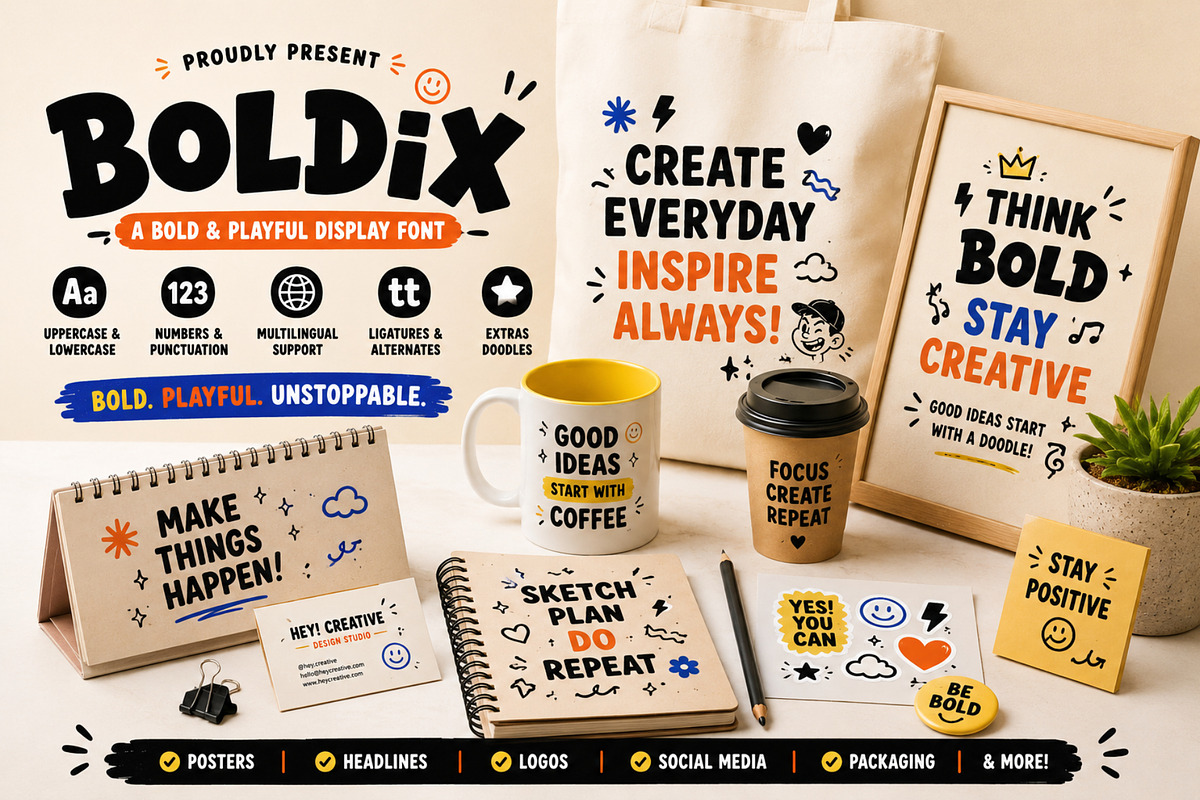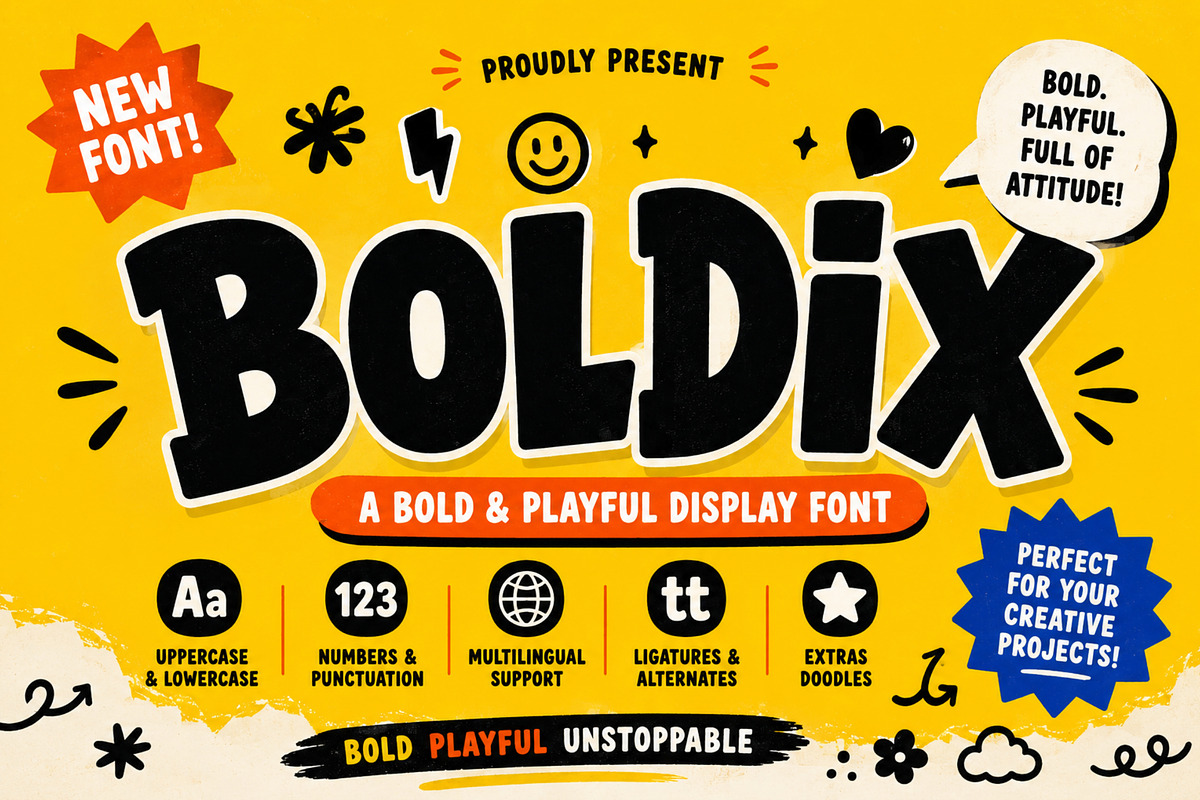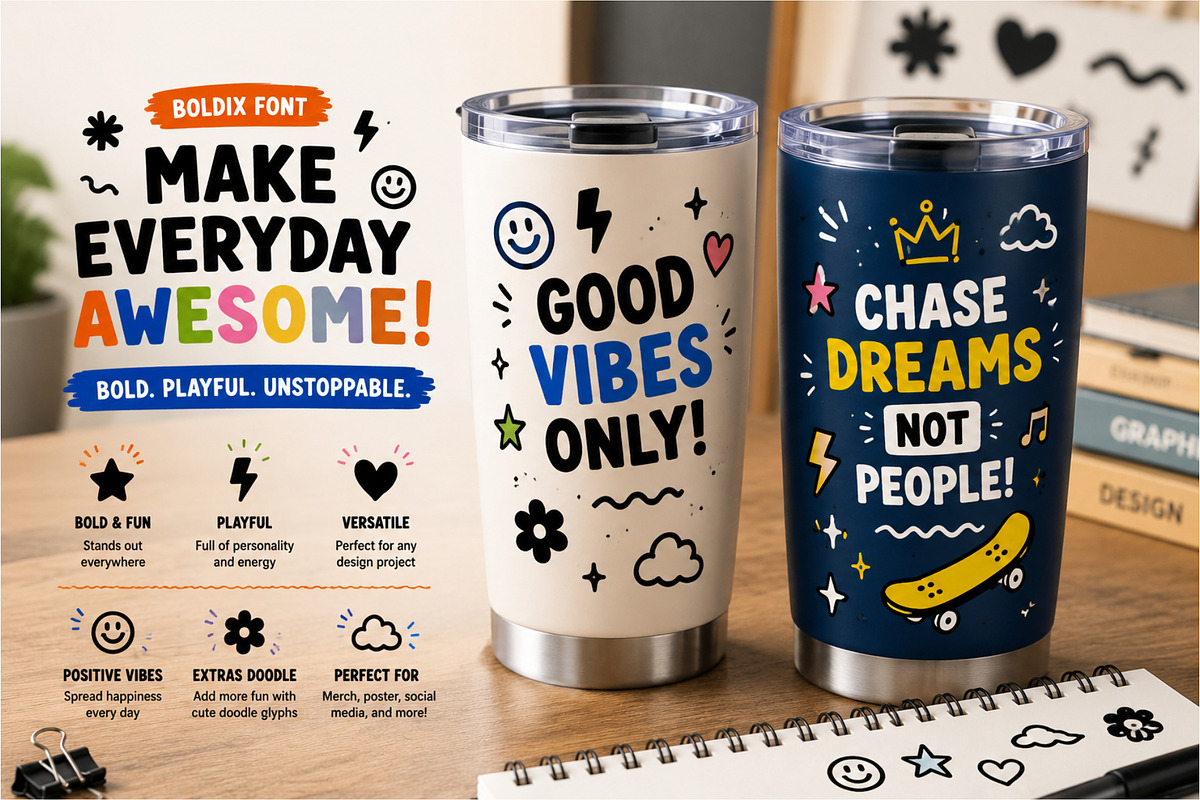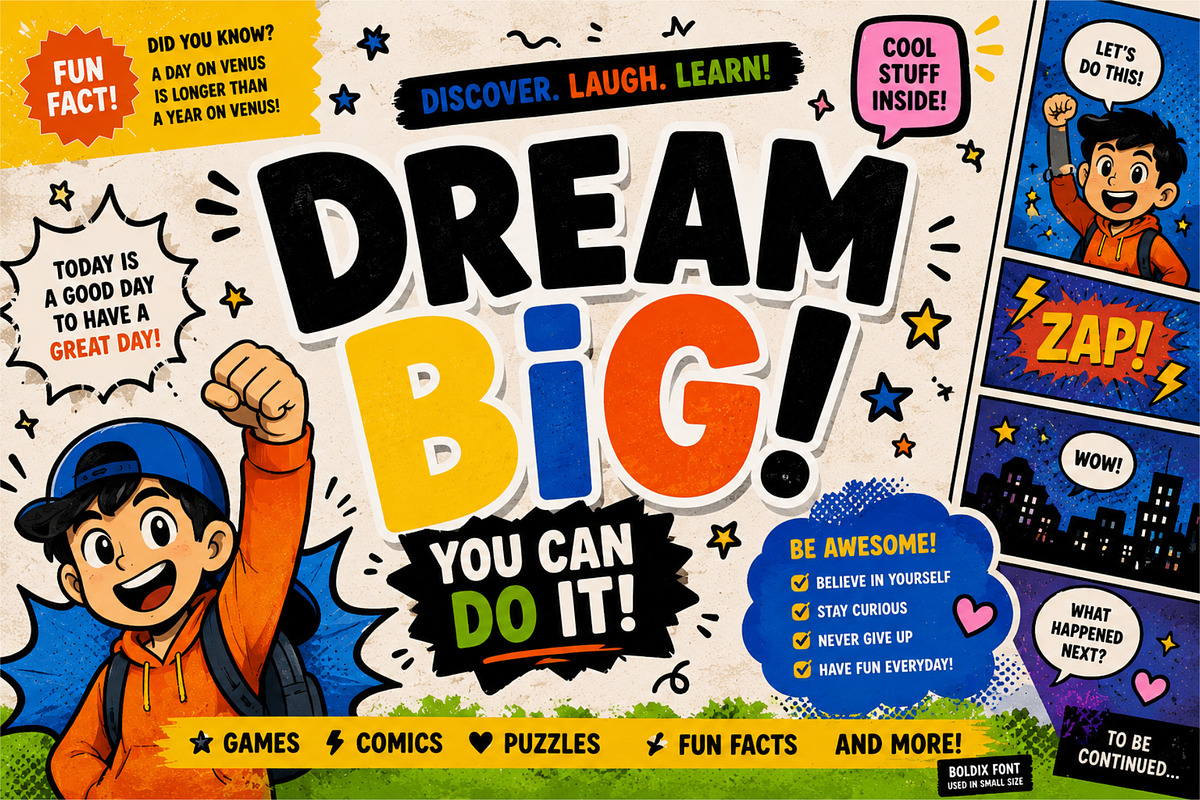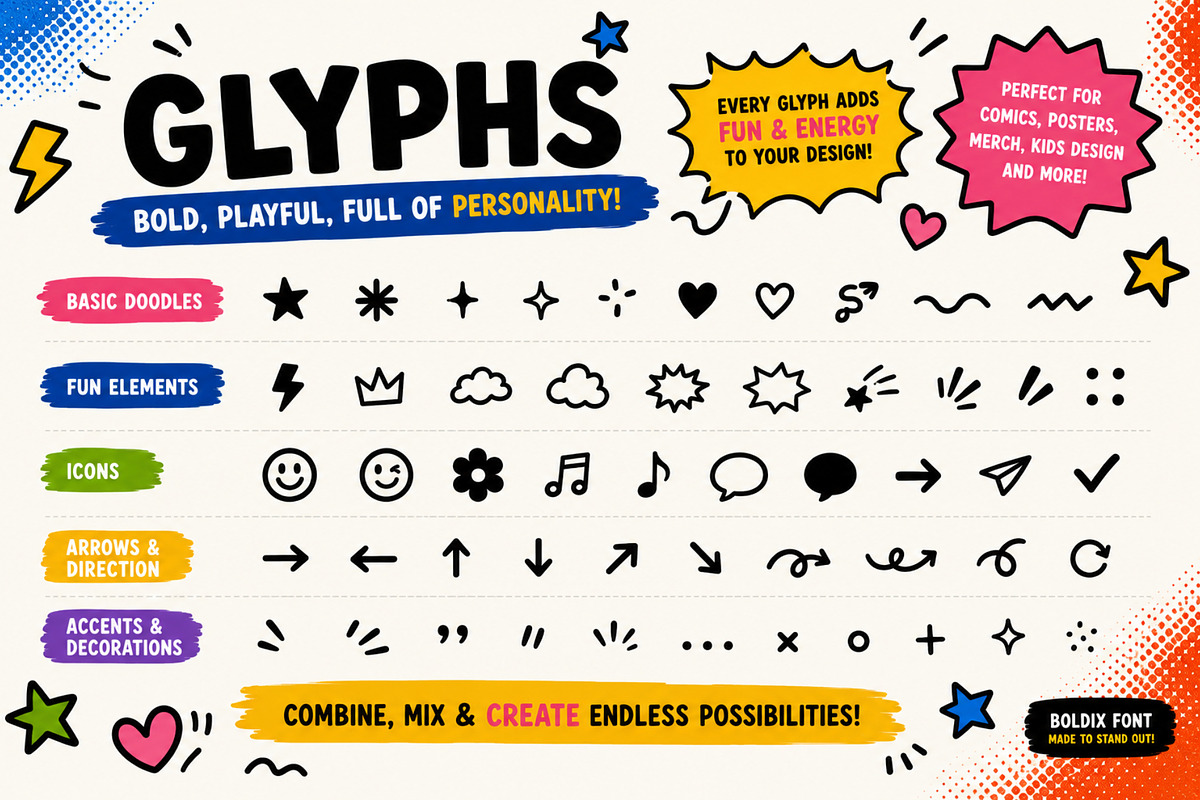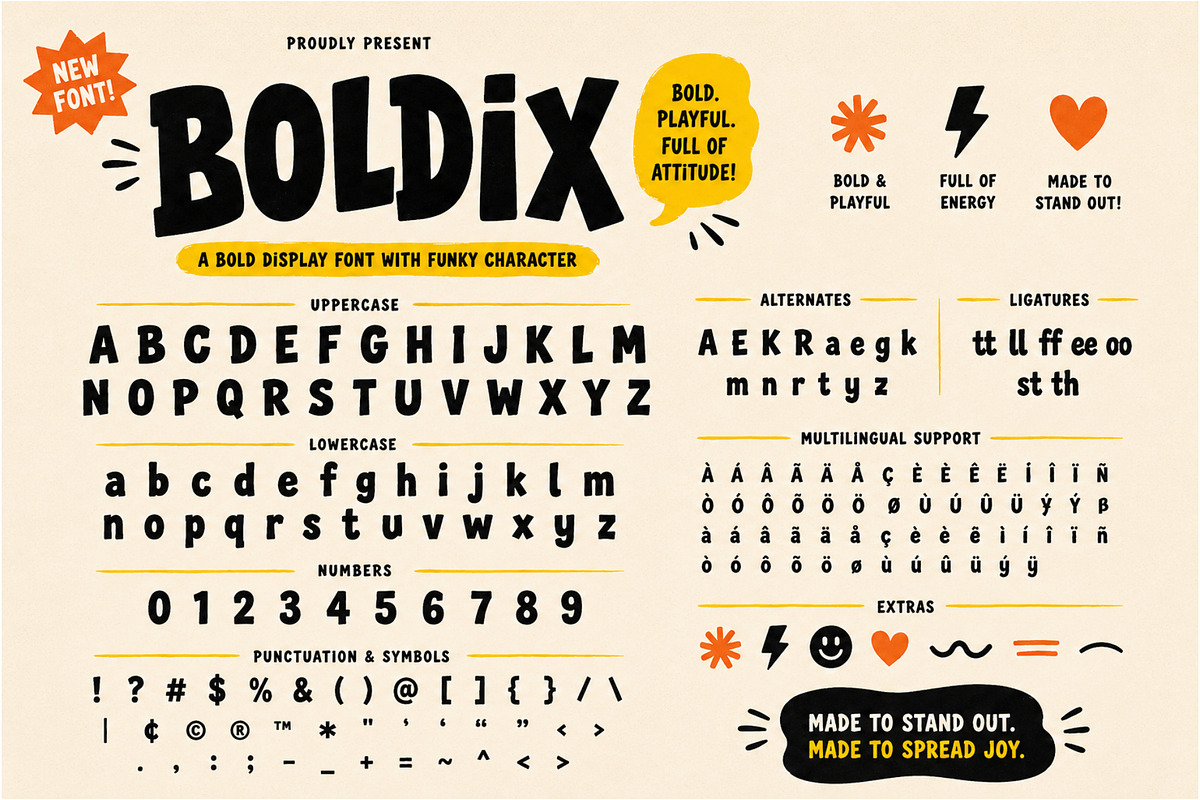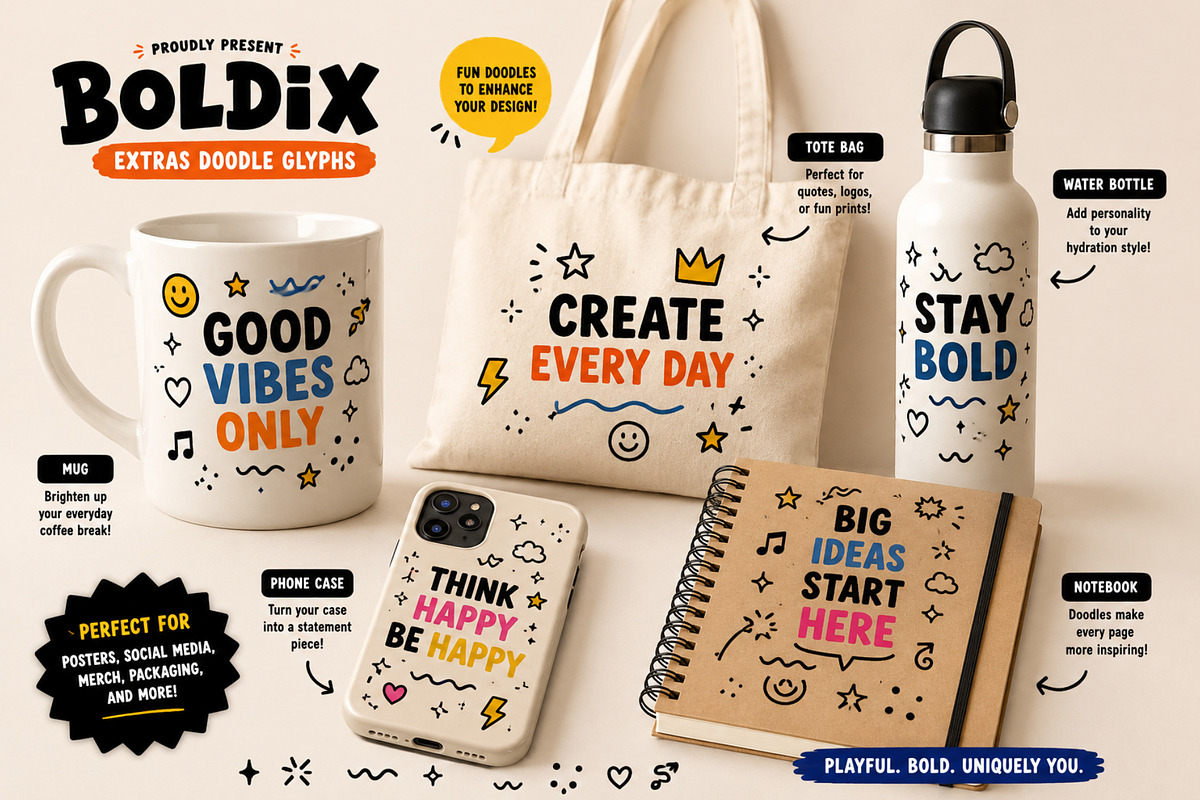
Boldix
Boldix – Bold & Playful Display Font
Introducing Boldix, a bold and playful display font packed with personality and confidence. Designed with chunky letterforms, energetic curves, and a fun handcrafted feel, Boldix is perfect for creating designs that demand attention.
Whether you're working on branding, posters, packaging, social media graphics, children's projects, or eye-catching headlines, Boldix brings a cheerful and unstoppable vibe to every design.
To make your creations even more expressive, Boldix includes ligatures, alternates, and a collection of fun doodle extras that pair perfectly with the font.
Why You'll Love Boldix
* Bold and playful display font
* Strong, energetic, and fun personality
* Perfect for eye-catching headlines and branding
* Includes ligatures and stylistic alternates
* Comes with playful doodle extras
* Easy to use and highly versatile
* Multilingual support
* Branding & Visual Identity
* Logo Design
* Product Packaging
* Posters & Flyers
* Social Media Graphics
* Children's Projects
* Educational Materials
* Book Covers
* Party Invitations
* Greeting Cards
* Advertising Designs
* Website Headers
* YouTube Thumbnails
* Craft Projects
* Printable Designs
* Creative Merchandise
* Uppercase & Lowercase Letters
* Numbers & Punctuation
* Ligatures
* Alternates
* Extras Doodles
* Multilingual Support
Boldix is the perfect choice for designers looking for a font that is bold, playful, and full of attitude. Create unforgettable designs and let your creativity stand out with Boldix.